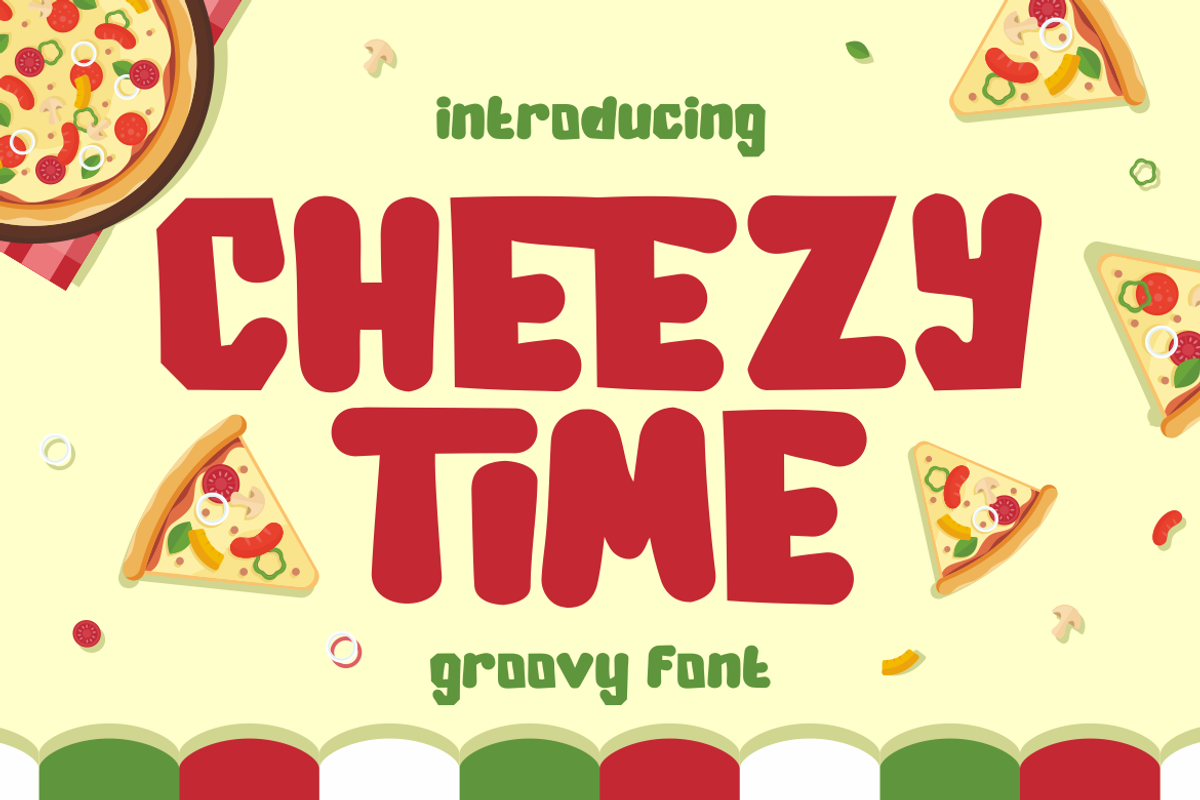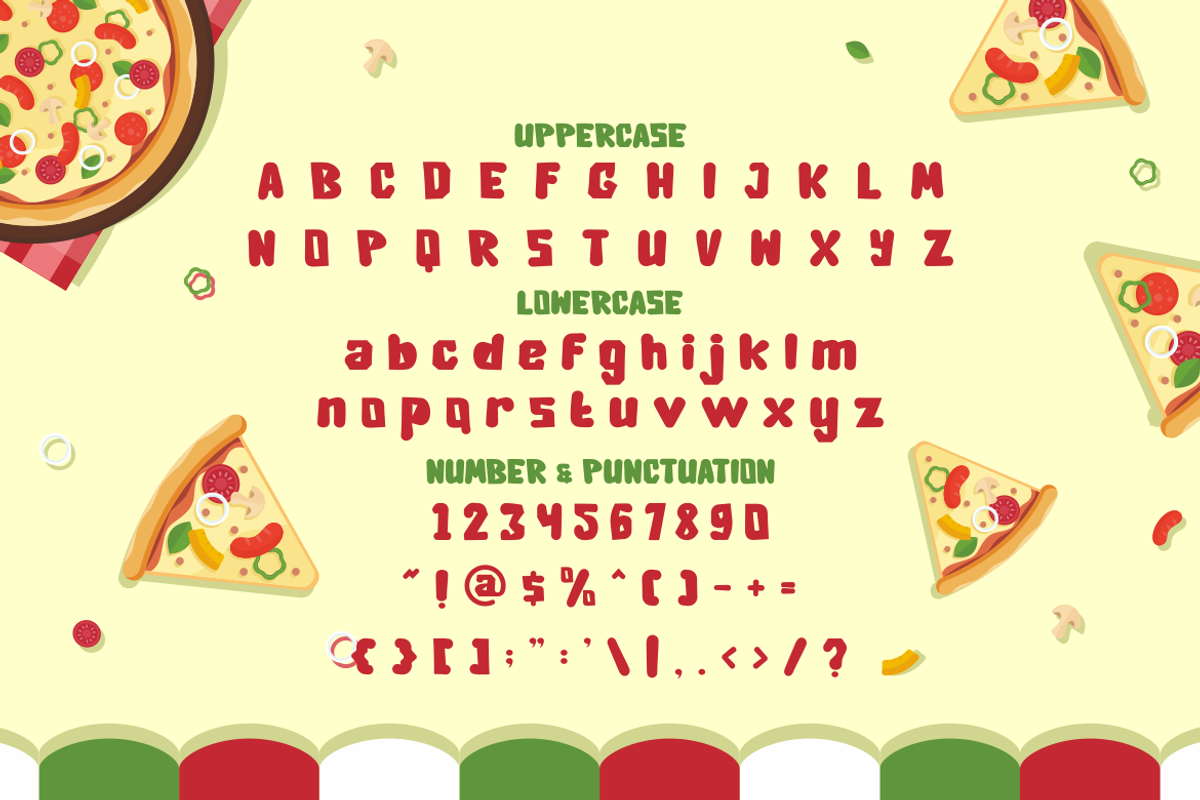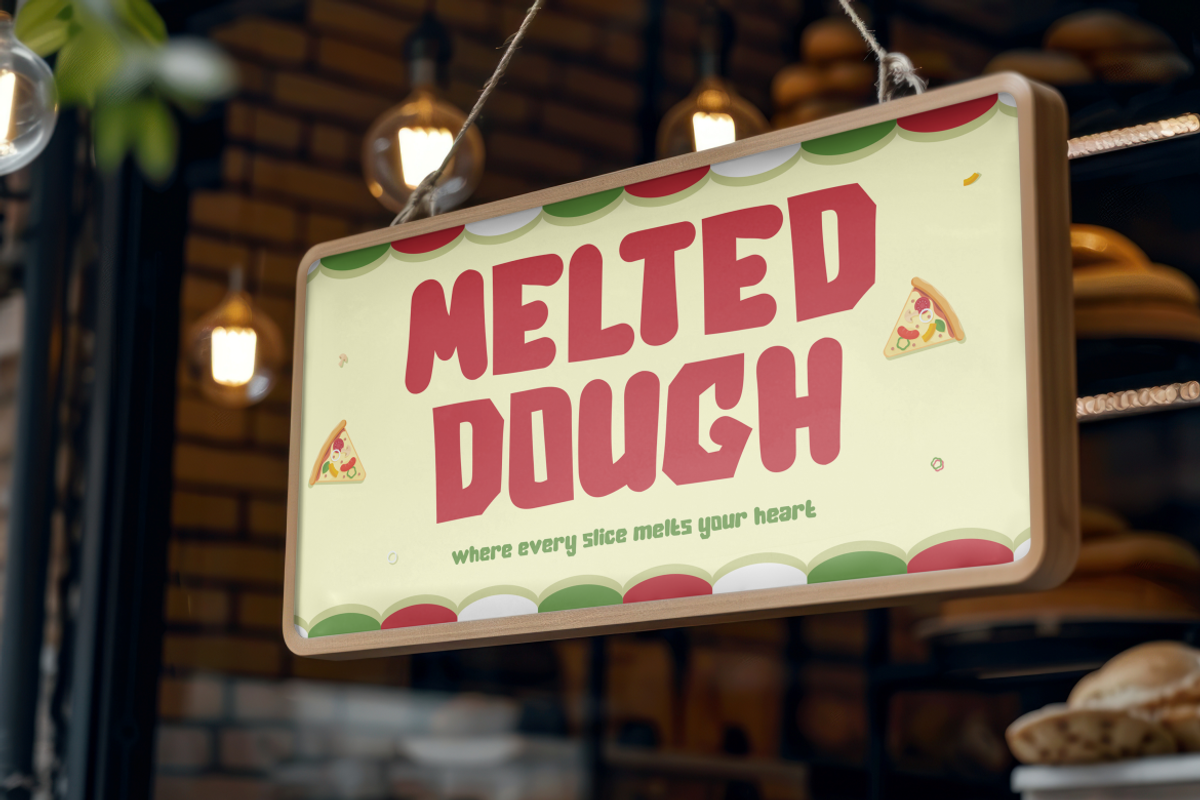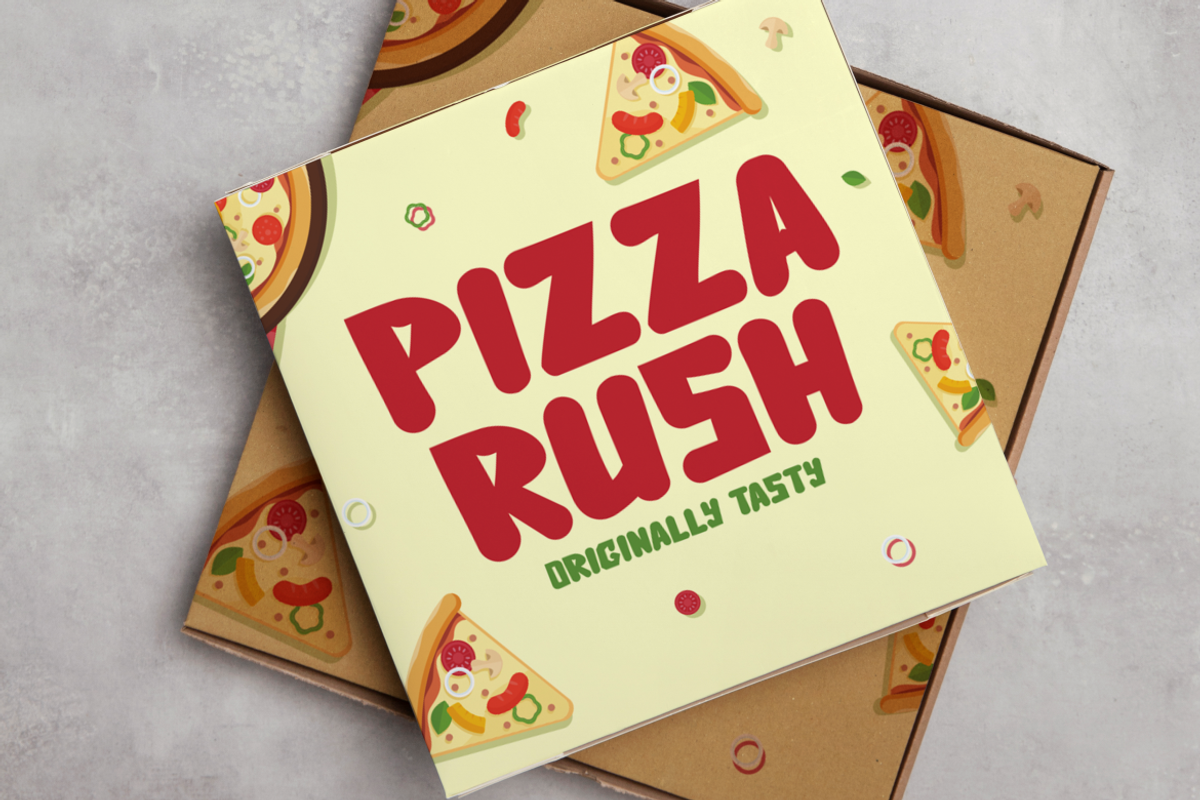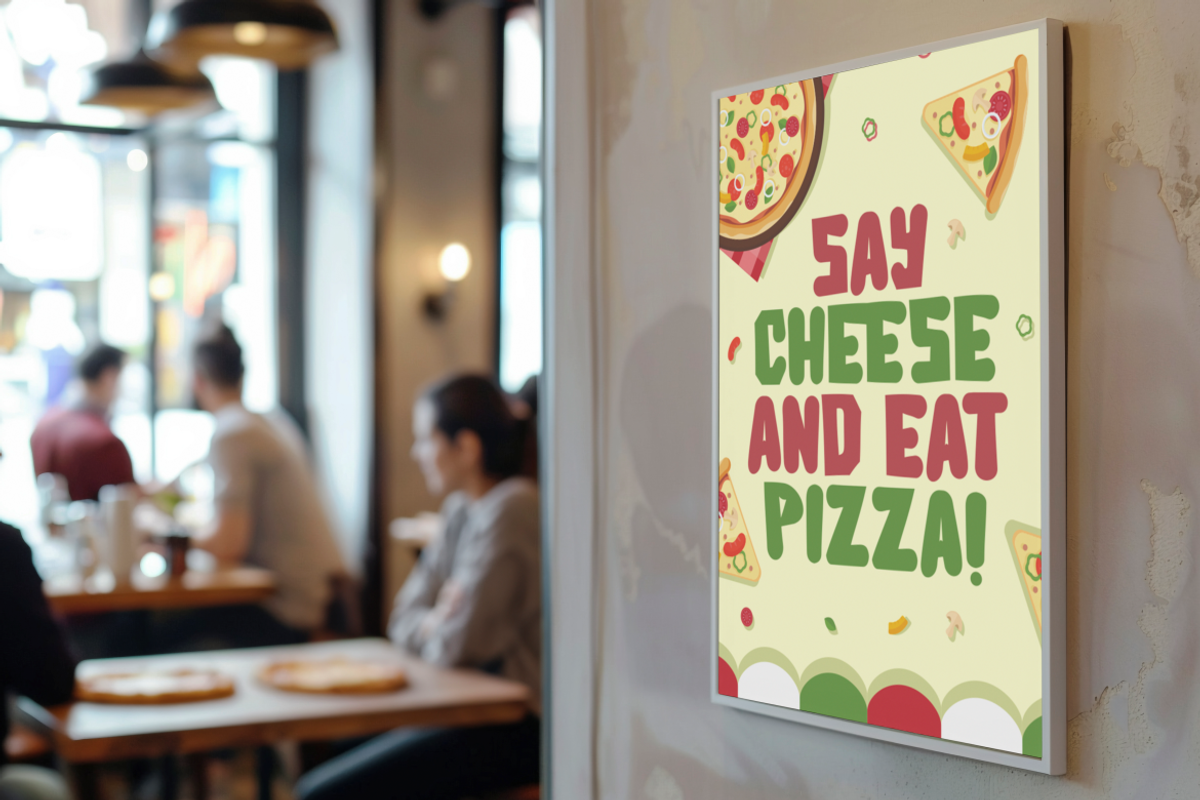
Cheezy Time Groovy Font
Cheezy Time Groovy Font captures the joy and flavor of playful typography with its bold and soft-edged character design. The font features thick, rounded strokes and slightly uneven shapes, creating a natural, hand-crafted feel that adds personality and warmth. Its proportions are wide and balanced, offering a chunky silhouette that enhances readability while keeping a fun and dynamic look. The smooth curves and groovy rhythm give it a nostalgic yet modern appeal, making Cheezy Time Groovy Font a great choice for eye-catching titles and bold headlines that need a cheerful touch.
Perfect for food-related branding, restaurant packaging, posters, and advertisements, this font radiates an appetizing, friendly vibe that attracts attention instantly. It’s also suitable for playful logo designs, children’s books, or lifestyle projects that require a joyful aesthetic. The thickness of each letter ensures strong visual impact, while its quirky details make it feel approachable and creative. Cheezy Time Groovy Font combines fun and functionality, giving your design a lively personality that feels both retro and modern. It’s a must-have for designers who want to bring a happy, flavorful tone to their visual creations.